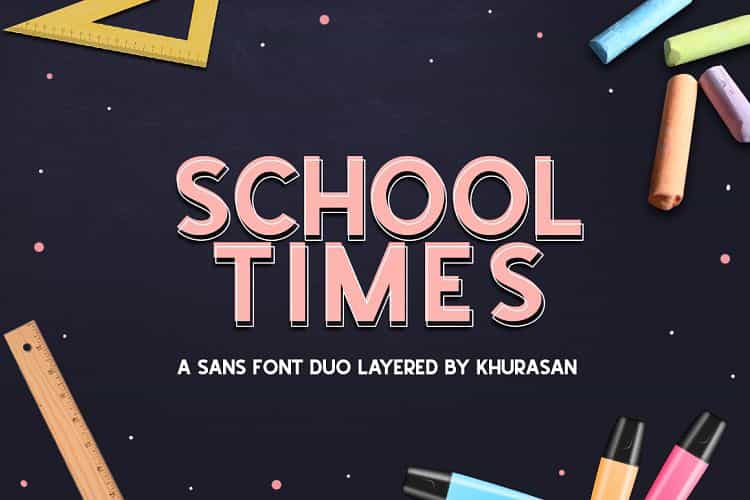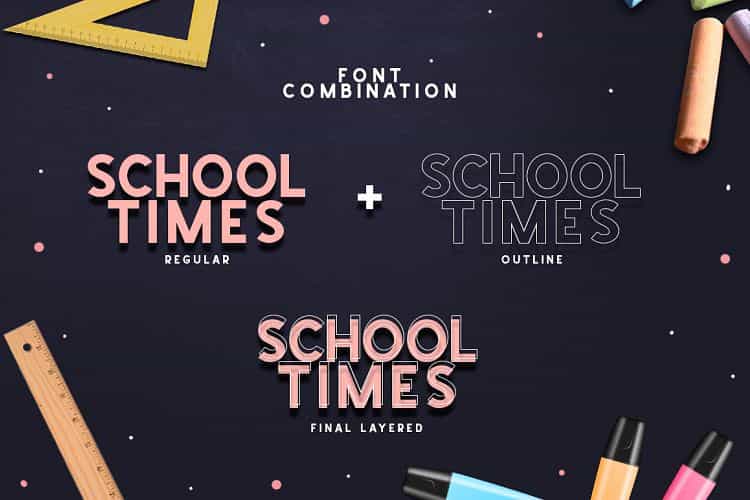
Introducing School Times Font. It is devised and distributed by khurasan. It is a sans serif type of bold and outline type. School Times has two different styles, the regular and the outline.